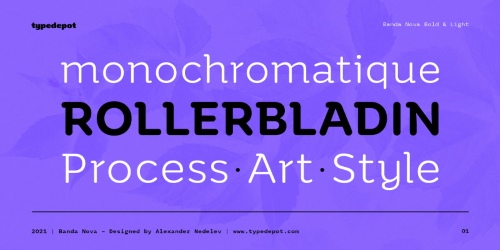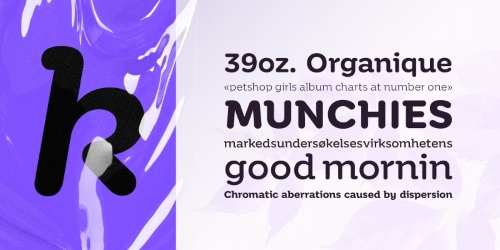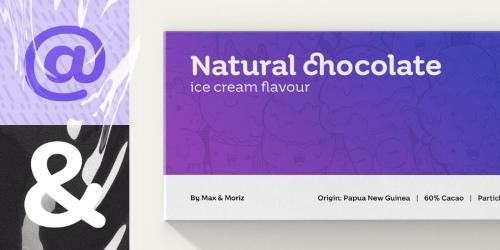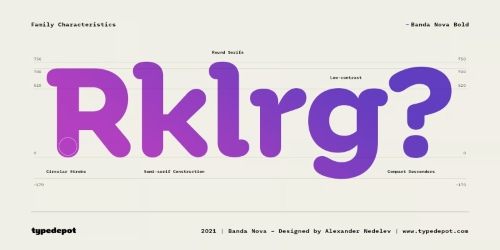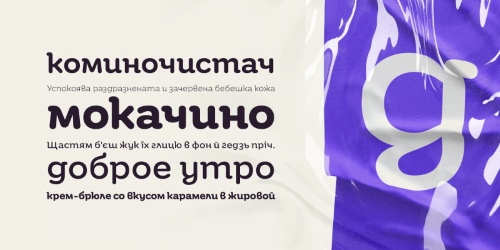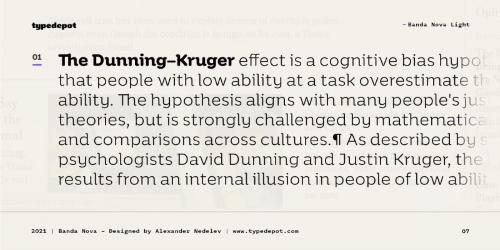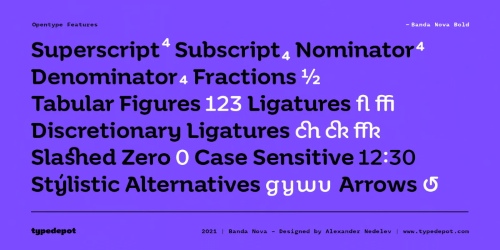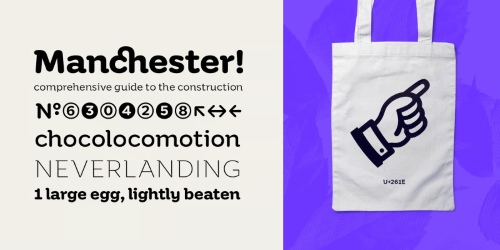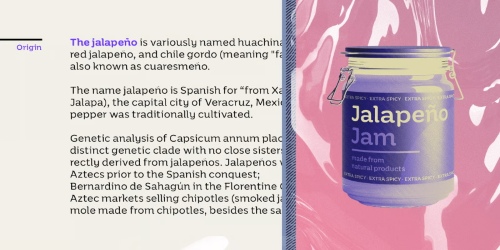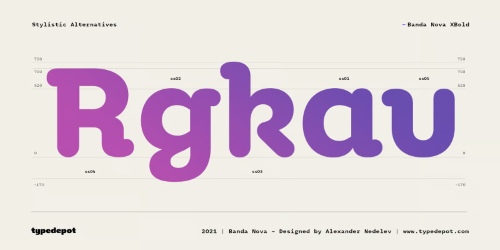
Banda Nova - 14 Styles Font Family
7 styles + Italics, 700 glyphs per weight | Cyrillic, Extended Latin
- Looking back at the first version of Banda, it’s hard not to feel a mix of affection and mild embarrassment. It was designed very early in the life of the studio, at a point where we were still figuring things out as we went along. A lot of decisions were made instinctively, without much of a system to back them up. The result was a typeface that felt friendly and expressive, but also uneven in places. Sweet, in the way first attempts usually are—but not particularly good at holding itself together.
- Still, people liked it. They used it, shared it, and gave it a life beyond what we expected. That kind of response matters, and it stuck with us even as our understanding of type design slowly improved. Over time, it became harder to ignore the issues we hadn’t really seen before: odd proportions, shapes that didn’t quite belong together, details that worked once but didn’t scale. Nothing catastrophic—just a lot of small things adding up.
So we started revisiting Banda.
- At first, the changes were minor. Fix a curve here, adjust spacing there. But the deeper we went, the more we realized that many of the original decisions needed a proper rethink. Eventually, so much had changed that we had to ask ourselves whether this was still the same typeface at all. In a strict sense, probably not. But it still carried the same general attitude, and that felt worth holding on to.
- Banda Nova is built around a few simple ideas. The x-height is tall, giving the lowercase a strong presence and making the typeface feel immediate and readable. The strokes are low-contrast and mostly rounded, which keeps things calm and predictable without feeling dull. Curves follow a consistent logic, not to show off, but to make sure letters actually get along with each other.
- The terminals sit somewhere between sans and serif. They’re not classic serifs, and they’re not cut off sharply either. We think of them as soft stops—small gestures that keep the shapes from feeling too blunt or too mechanical. It’s a detail you might not notice right away, but it helps the typeface feel more relaxed and less rigid.
- We also paid more attention to vertical proportions this time around. Descenders are kept fairly compact, which helps lines sit closer together and keeps headlines from falling apart vertically. Again, nothing flashy—just decisions meant to make the typeface easier to use.
- The family now includes seven weights, from fairly light to unapologetically heavy. The lighter ones feel more restrained and work well when you don’t want the type to shout. The heavier styles lean into the rounded construction and start to feel chunky, almost cartoonish in a good way. Together, they give enough range to cover a lot of ground without trying to be everything at once.
- With Banda Nova, we also took the opportunity to expand the character set properly. The family now includes full Cyrillic support, drawn with the same logic as the Latin, and the total number of characters is almost twice what the original Banda offered. This wasn’t about ticking boxes—it was about making the typeface usable in more places without it feeling patched together.
- Banda Nova isn’t a revival and it isn’t a cleanup job. It’s more like finishing something we started before we really knew how to finish things. It keeps the friendliness of the original, but it’s more stable now, more consistent, and better suited to the kinds of work we actually do today.